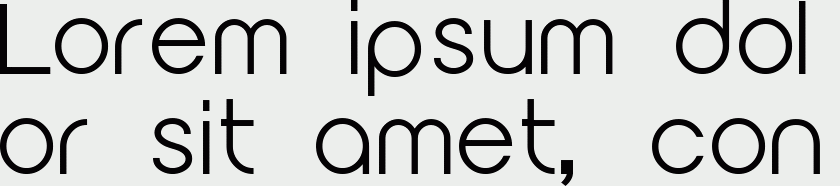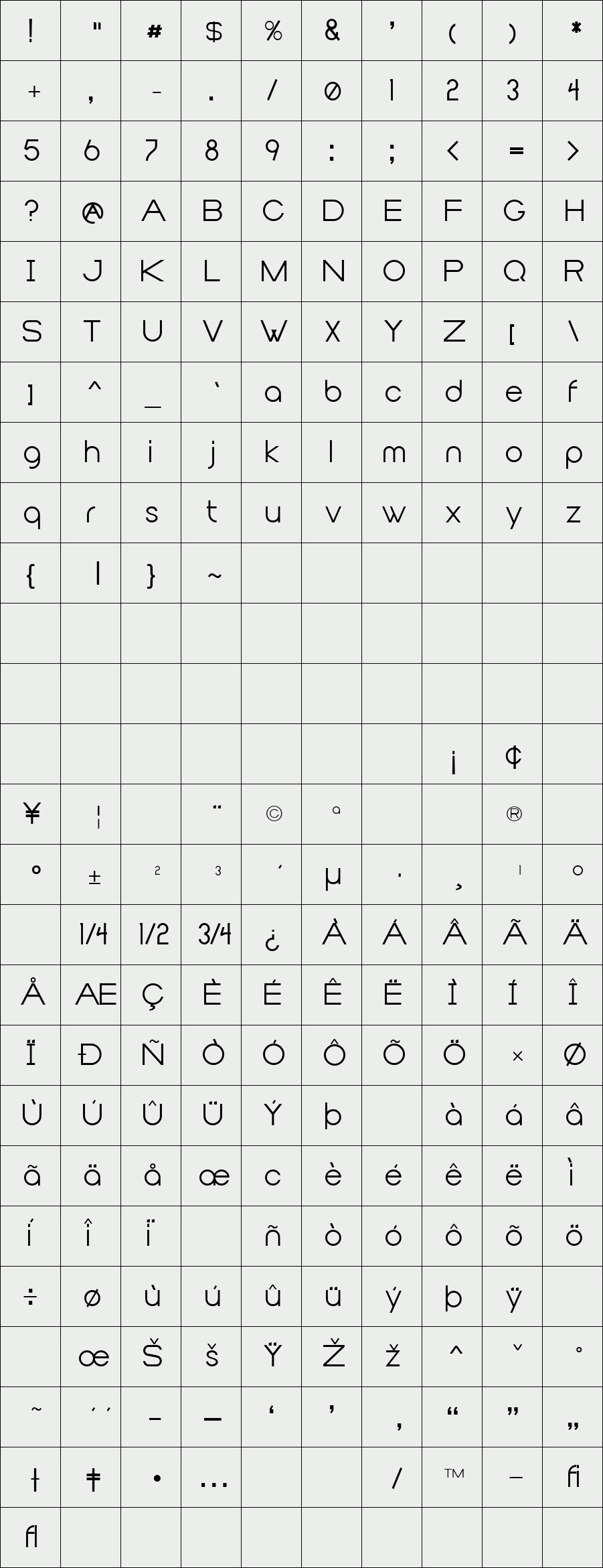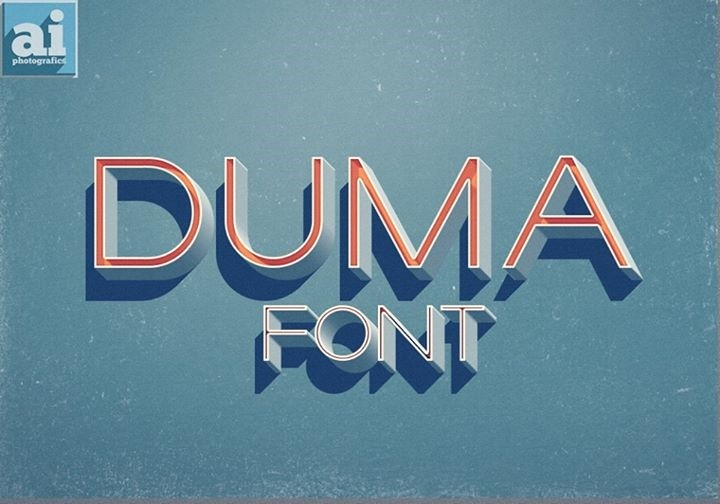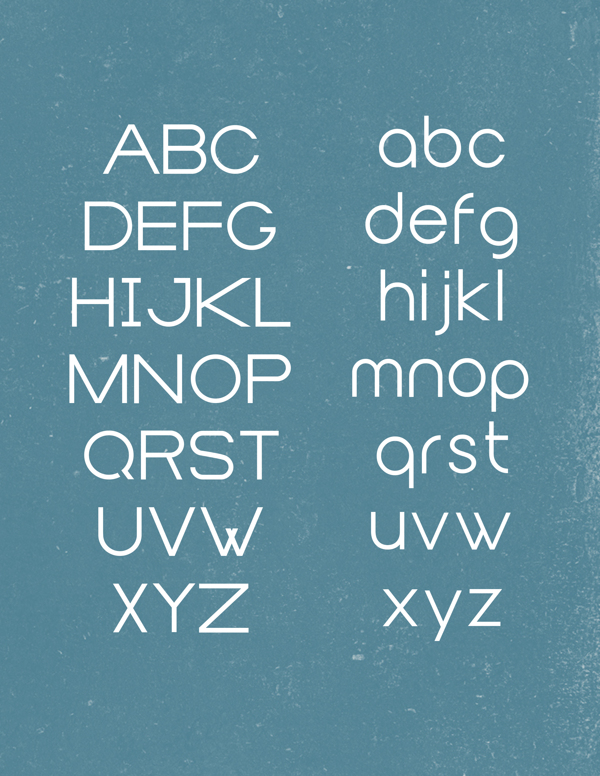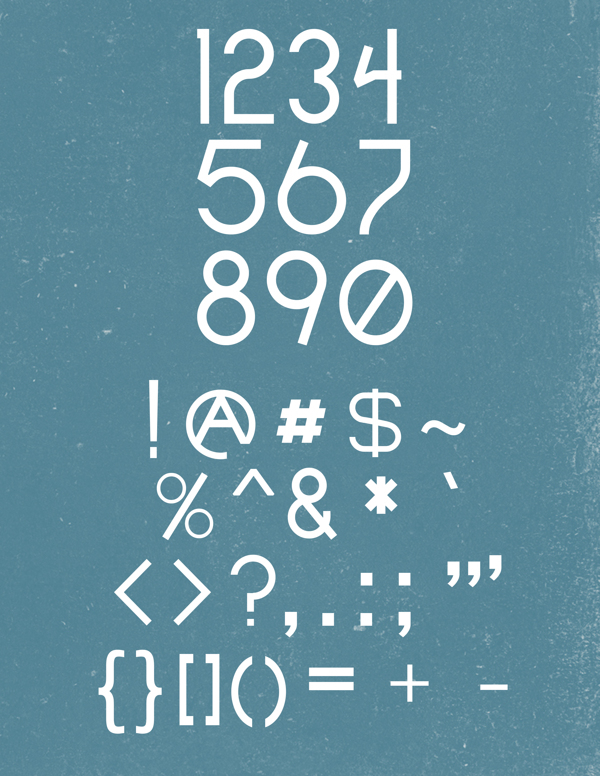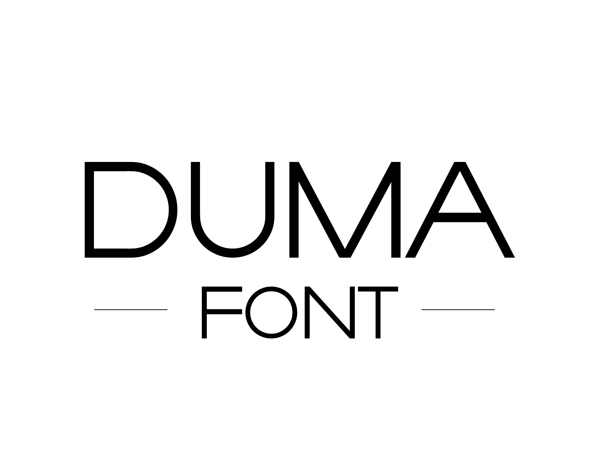
Duma
Duma font is a display sans that is characterized with long legs and is very extended. Perfect for headers and marketing placements.
Designer: Ismael Adames